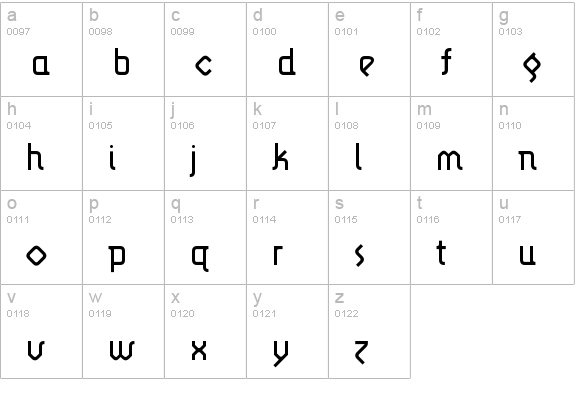
LunatixLight font is a modern and stylish typeface that exudes elegance and sophistication. Its sleek lines and clean design make it perfect for a wide range of design projects, from logos to branding to marketing materials. The font's unique blend of classic and contemporary elements gives it a timeless appeal that will make your text stand out. What's even better is that LunatixLight font is completely free to download at FontsMarket.com. With just a few clicks, you can add this stunning font to your collection and start using it in your projects right away. Don't miss out on this fantastic opportunity to enhance your designs with the beauty and versatility of LunatixLight font. Download it now and let your creativity shine!